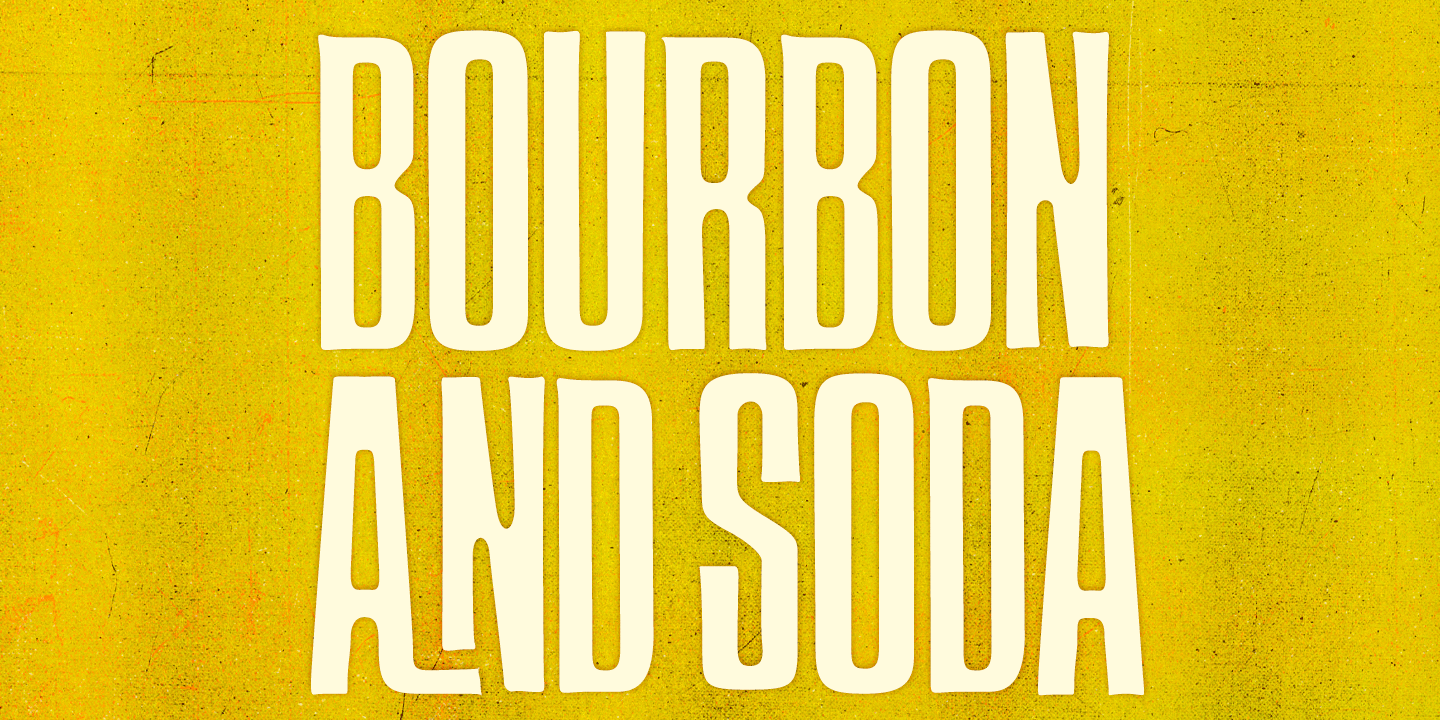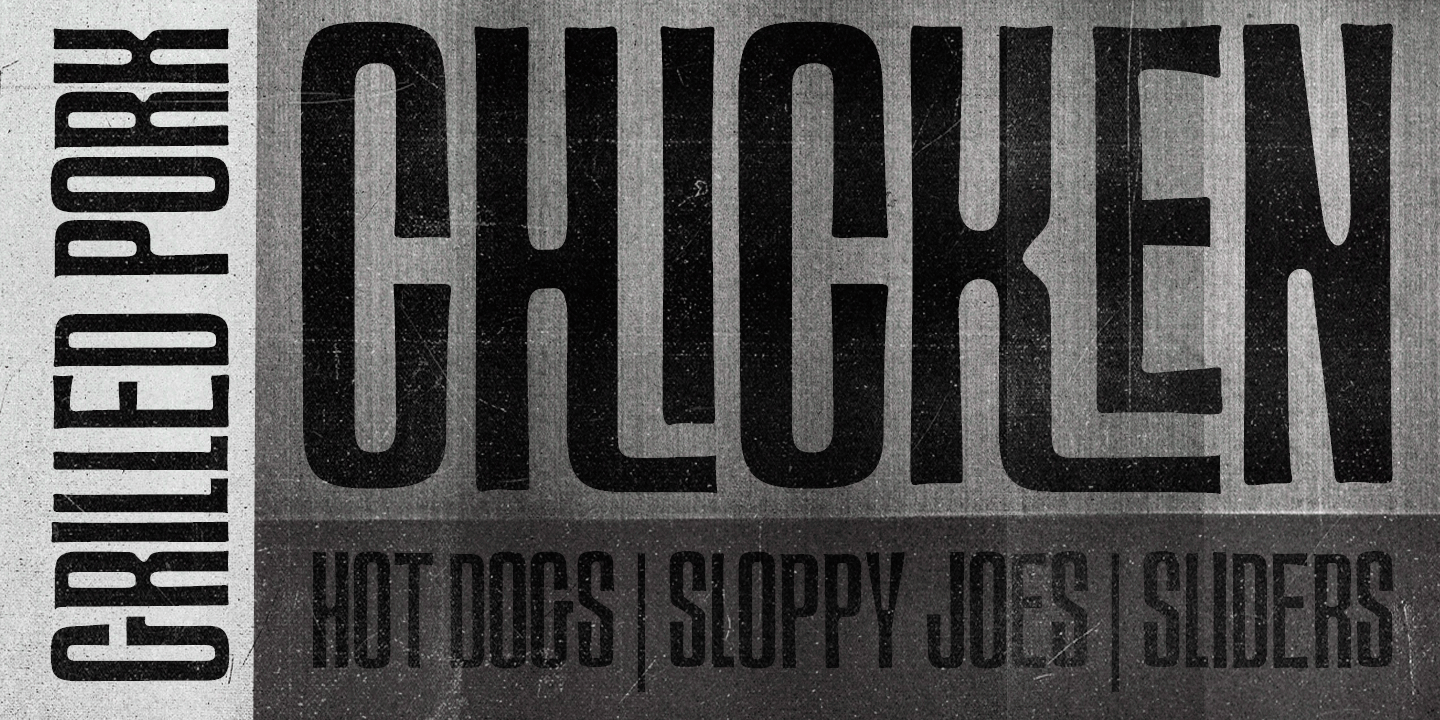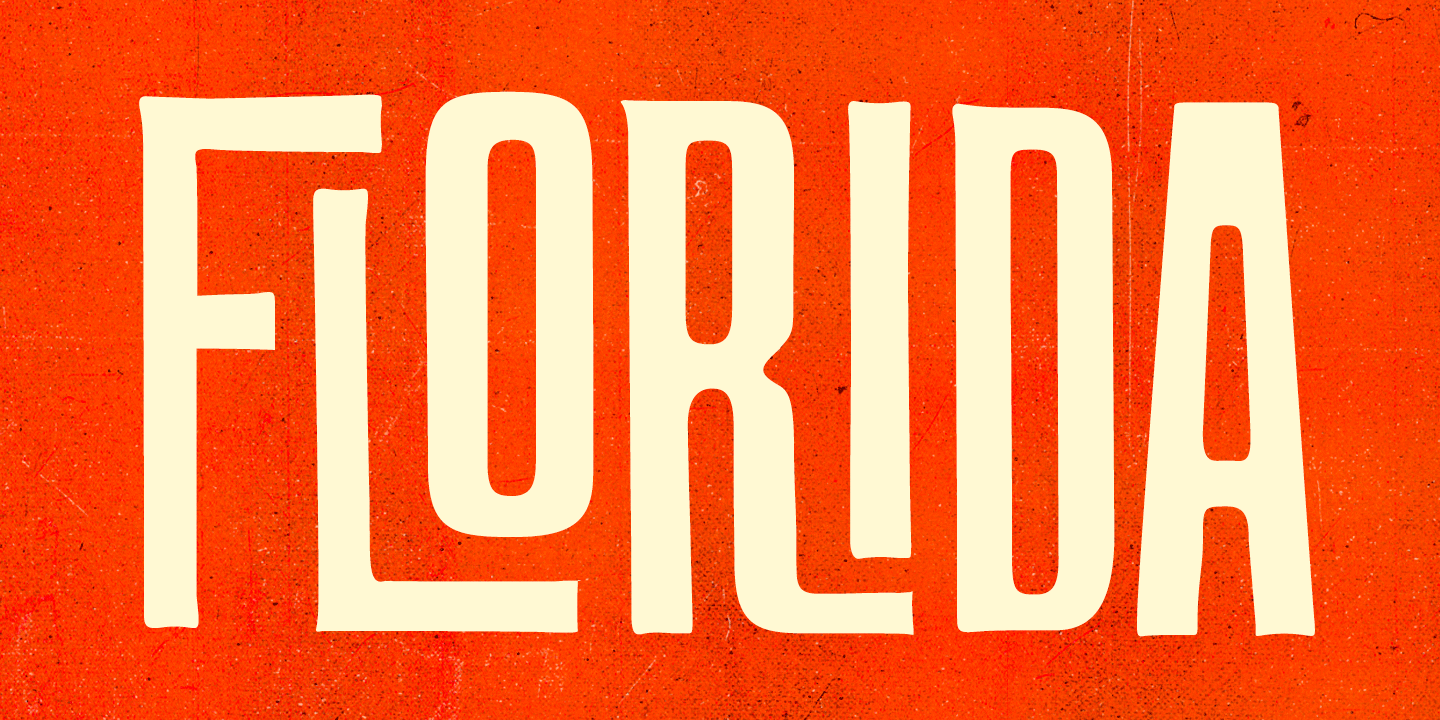
Master of Poster is a hand drawn, interlocking display typeface with tiki-vibes. Master of Poster is ultra condensed and comes in three weights – light, regular & bold. Master of Poster is fun and fast typeface for creating posters and other display…